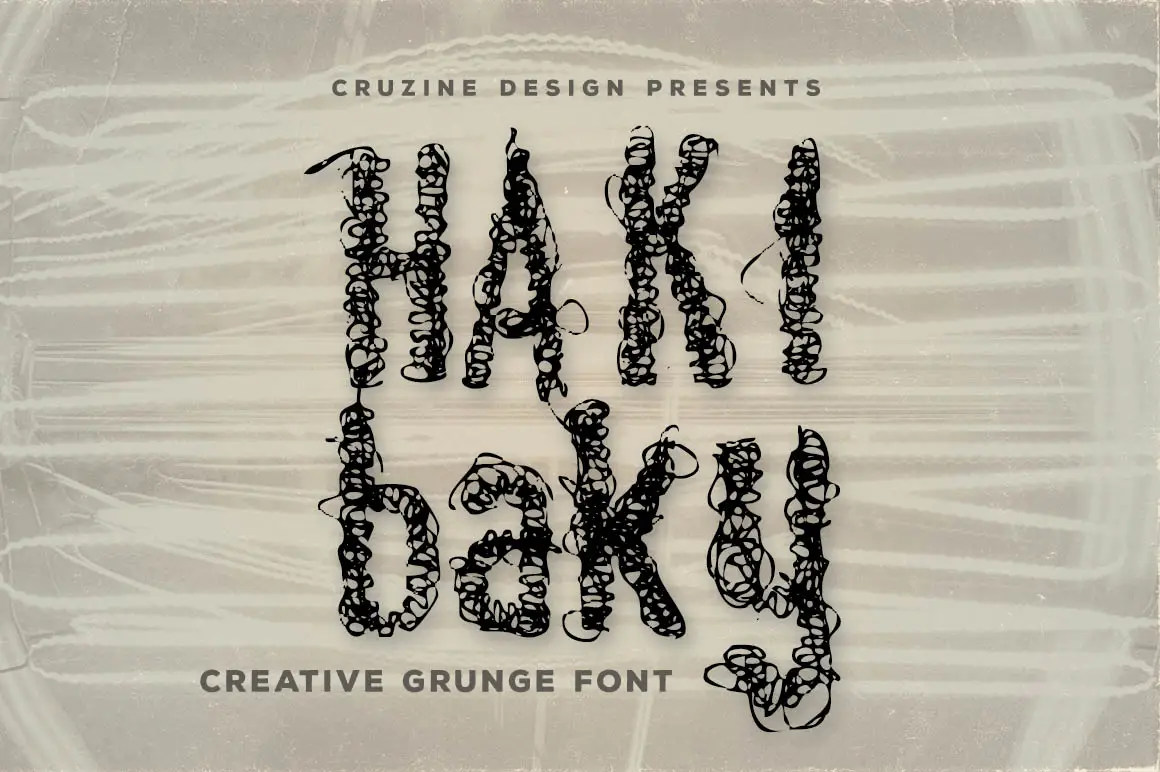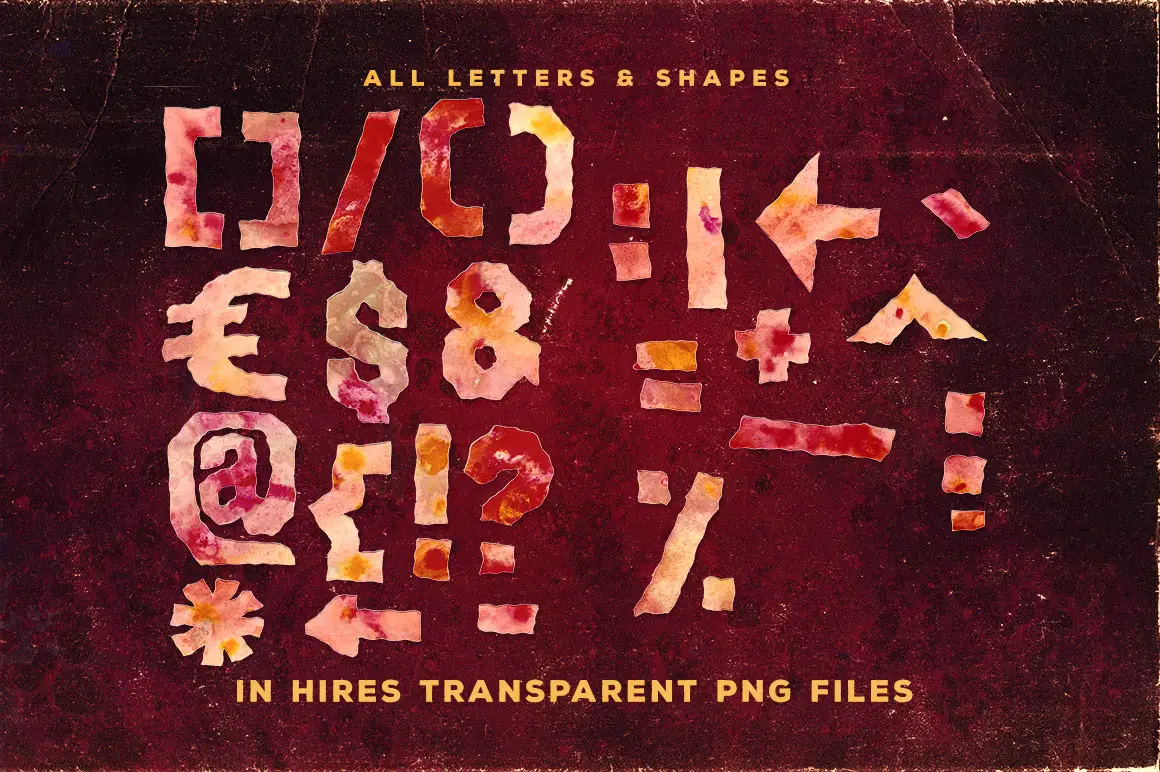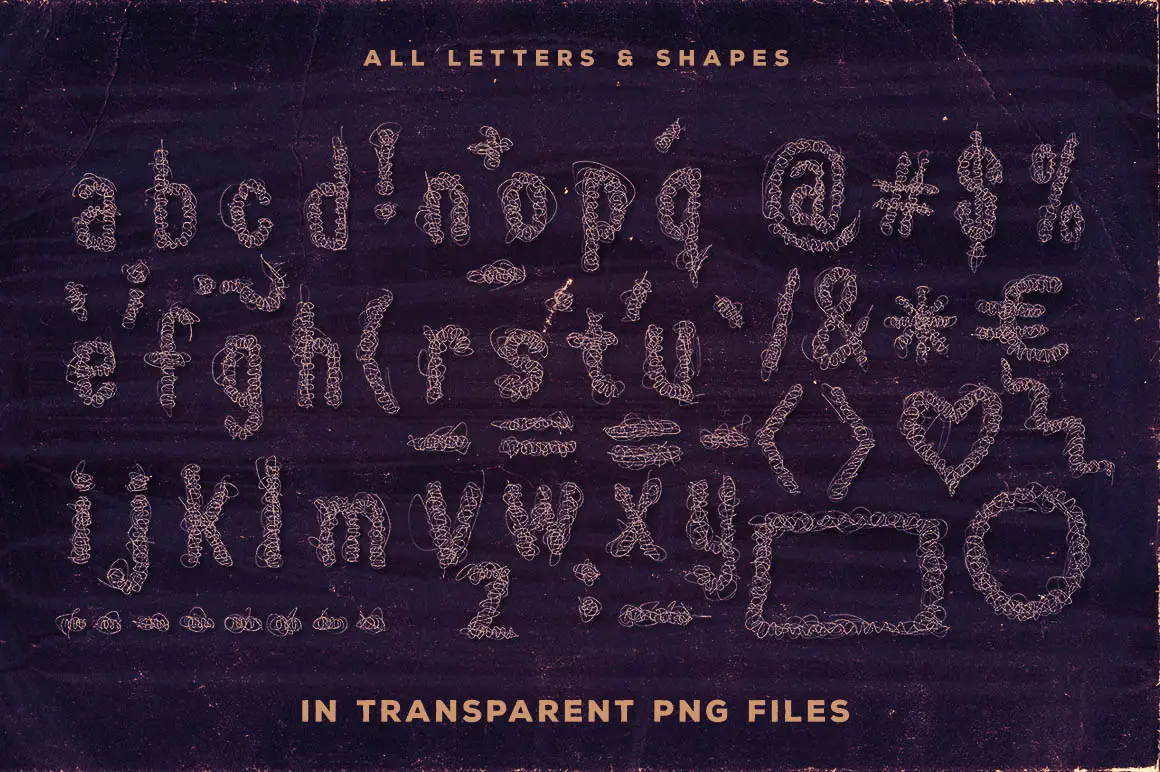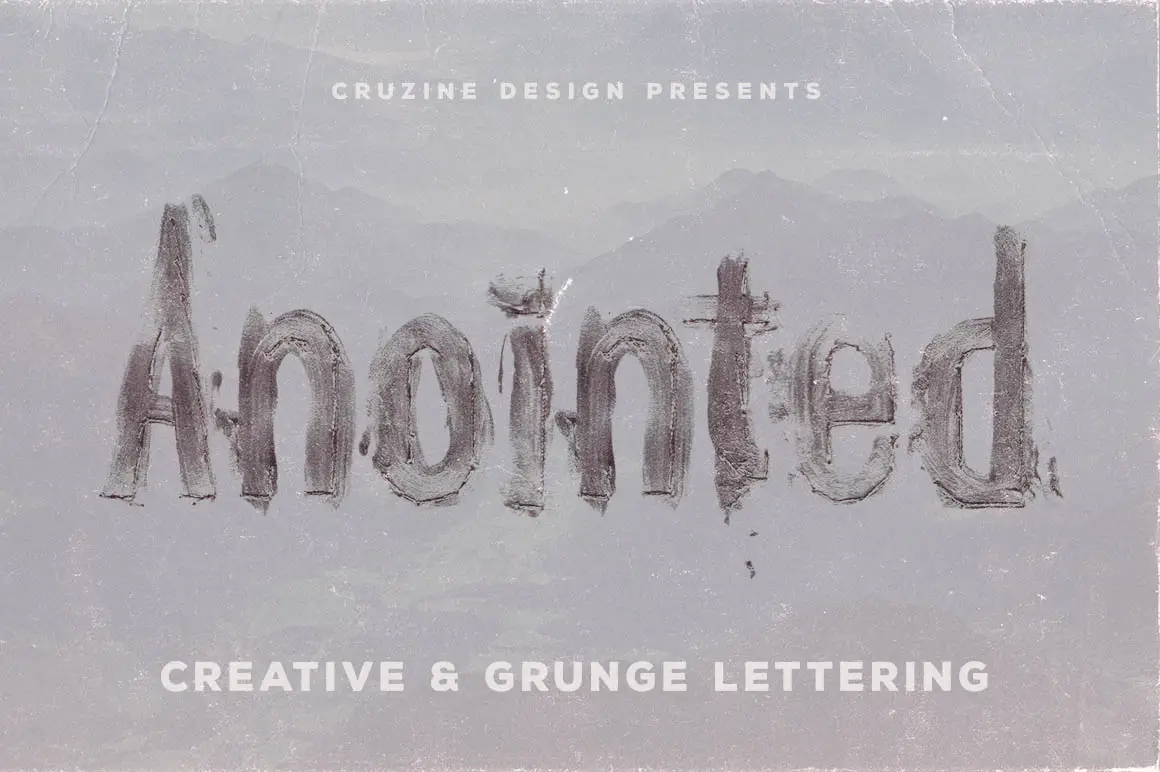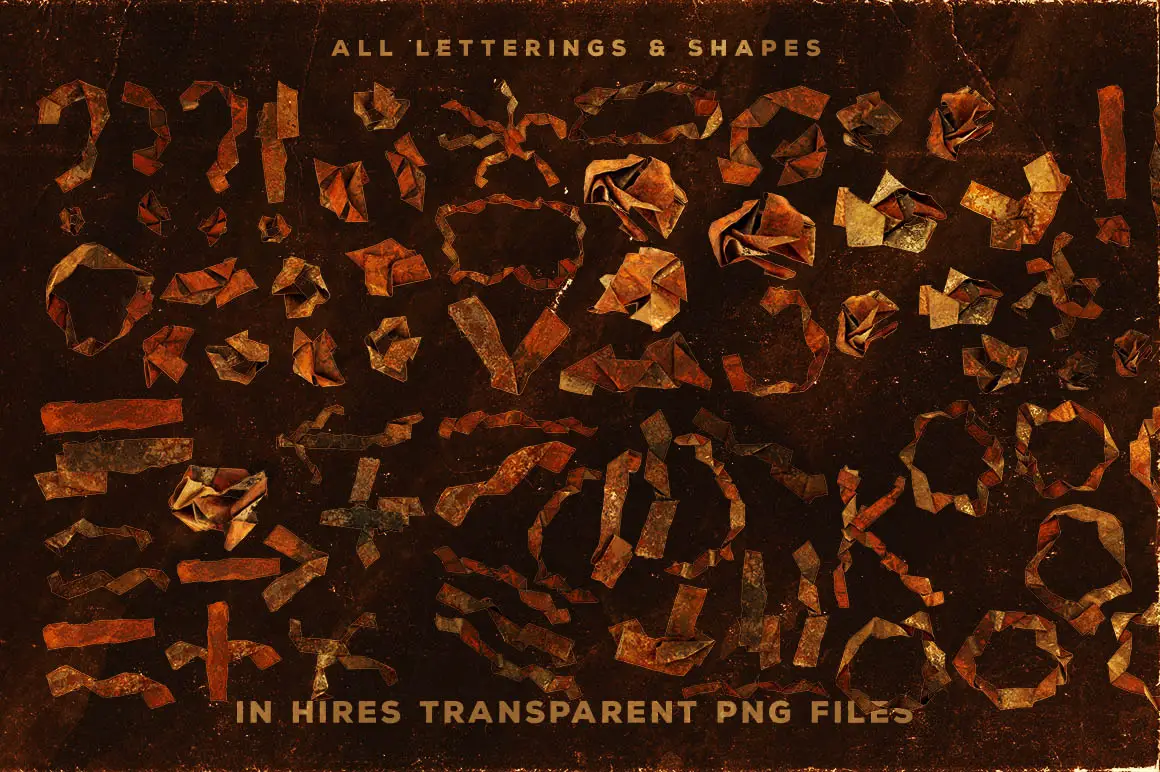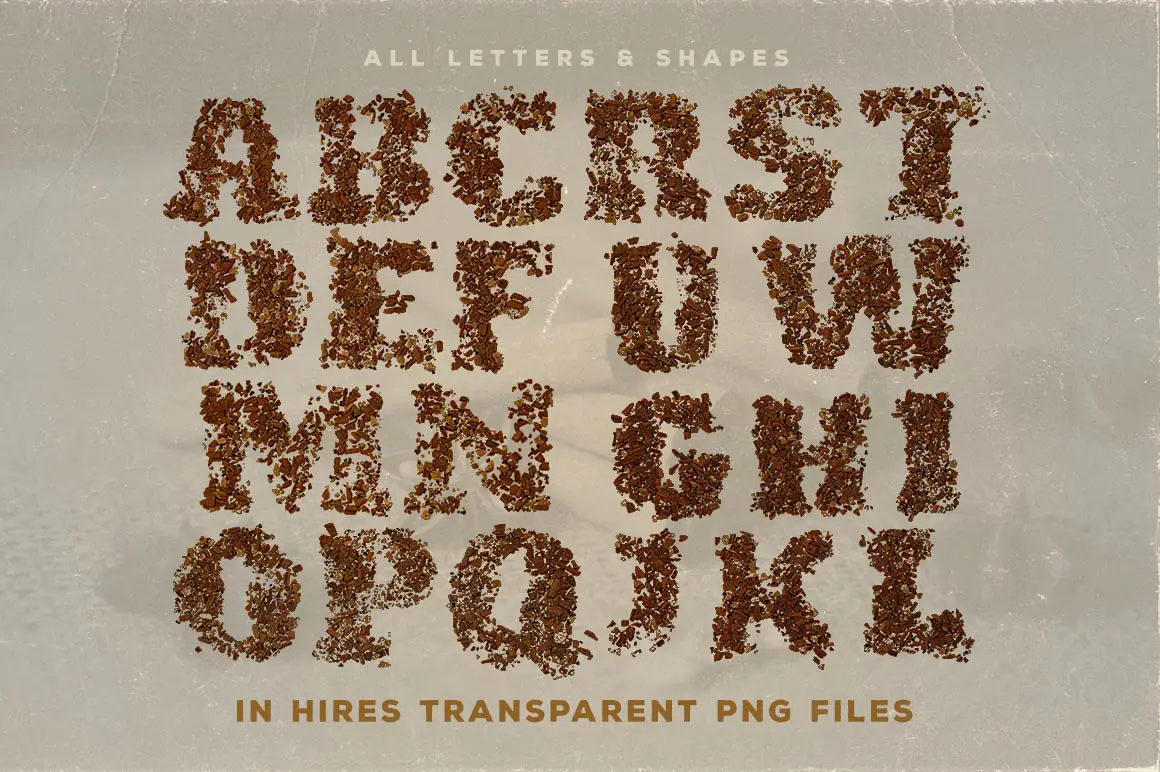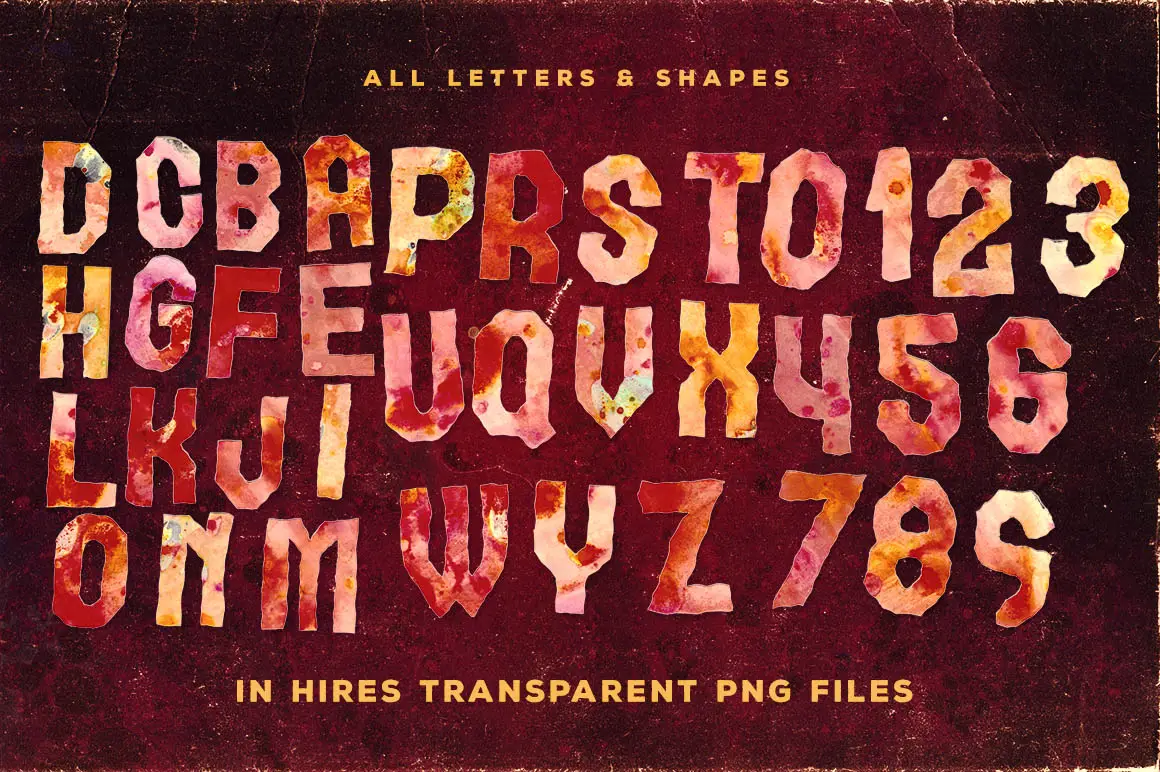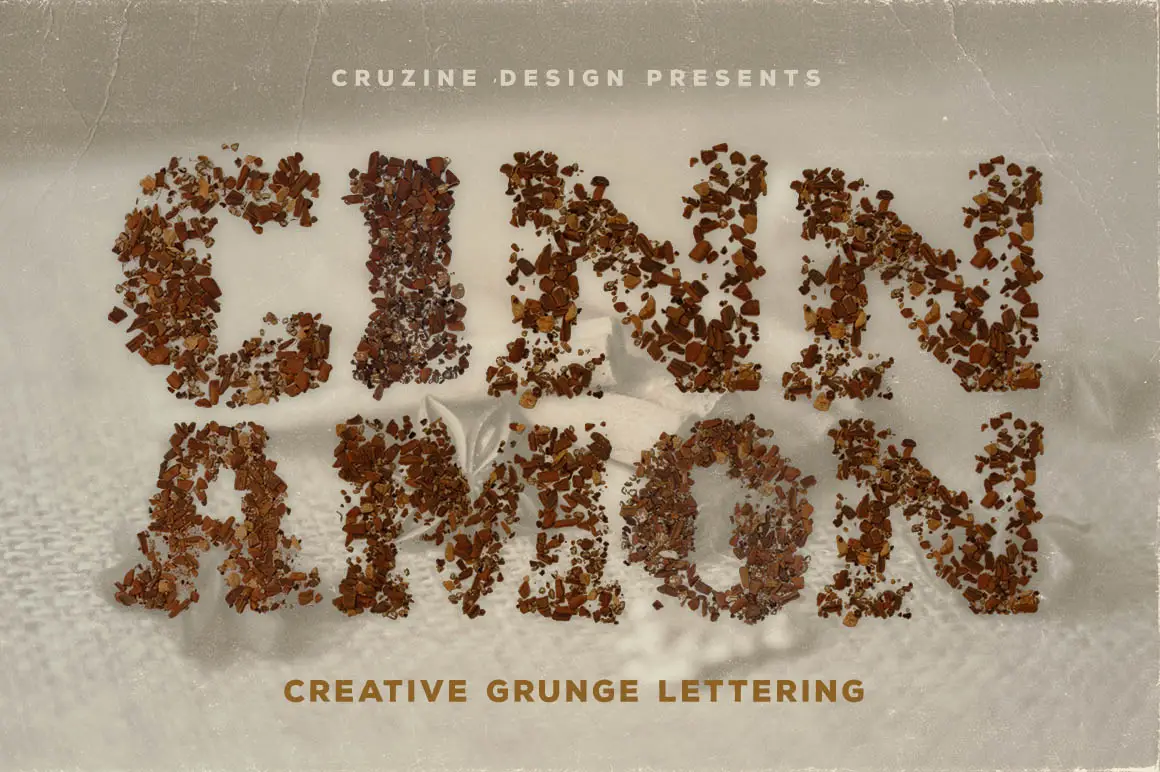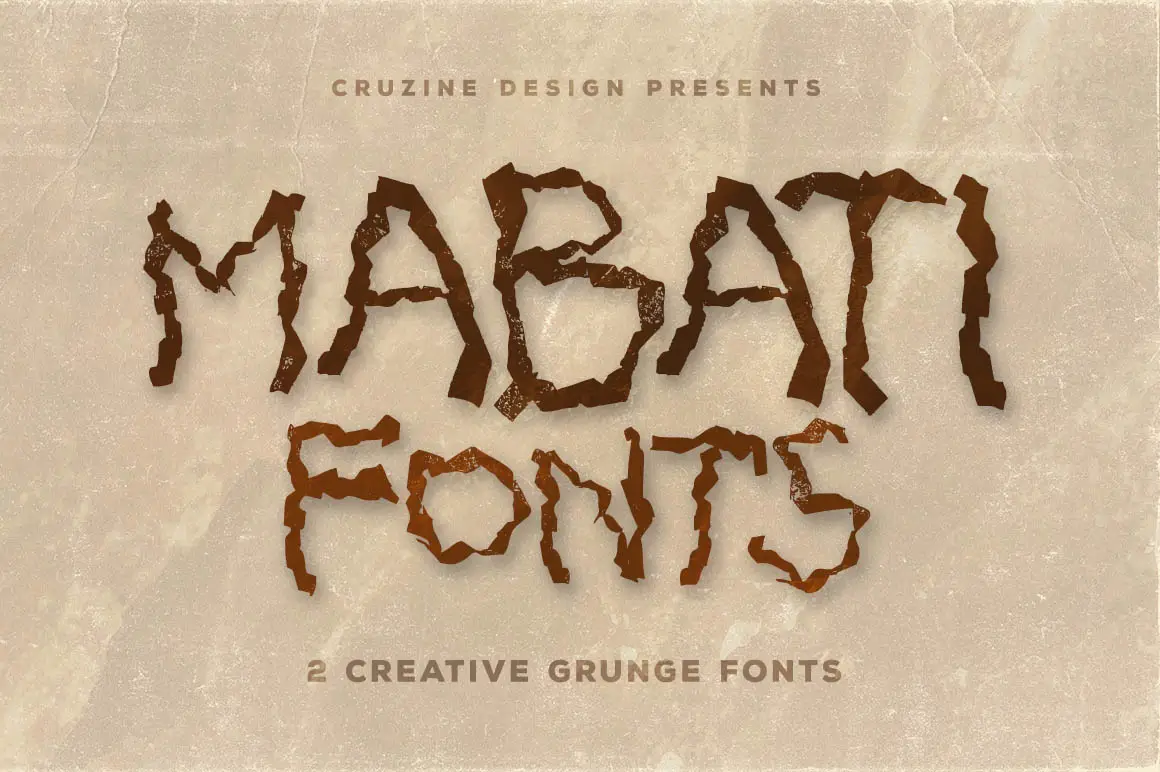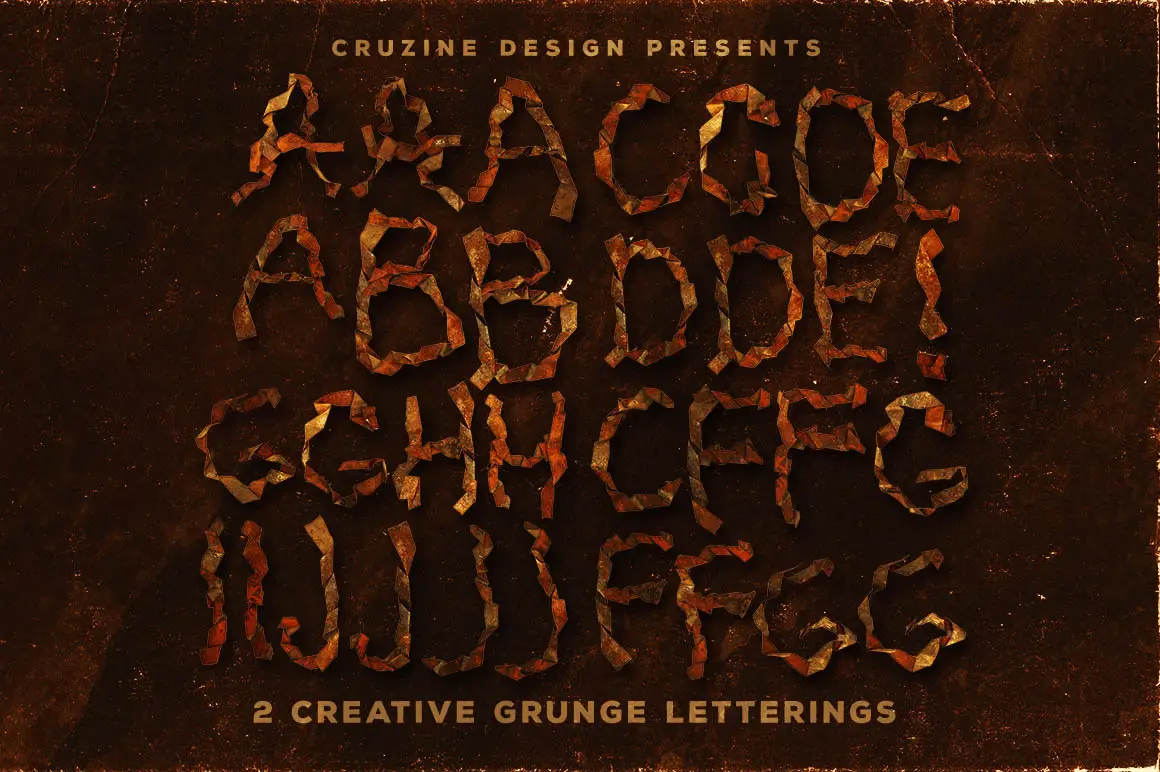
Artistic Fonts Bundle 3
Elevate your design projects with the Artistic Fonts Bundle 3, a curated collection of unique and stylish fonts perfect for a variety of applications. This bundle includes a diverse range of font styles, from elegant scripts to bold display types, ensuring you have the right typeface for every creative endeavor.
• Variety of font styles including serif, sans-serif, script, and display.
• Multiple weights and styles available for flexibility in design.
• 10 unique font families.
• Uppercase and lowercase letters, numbers, and special characters.
• Comprehensive multilingual support.
• Ideal for branding, logos, invitations, and print materials.
• Perfect for web design, ensuring your online presence stands out.